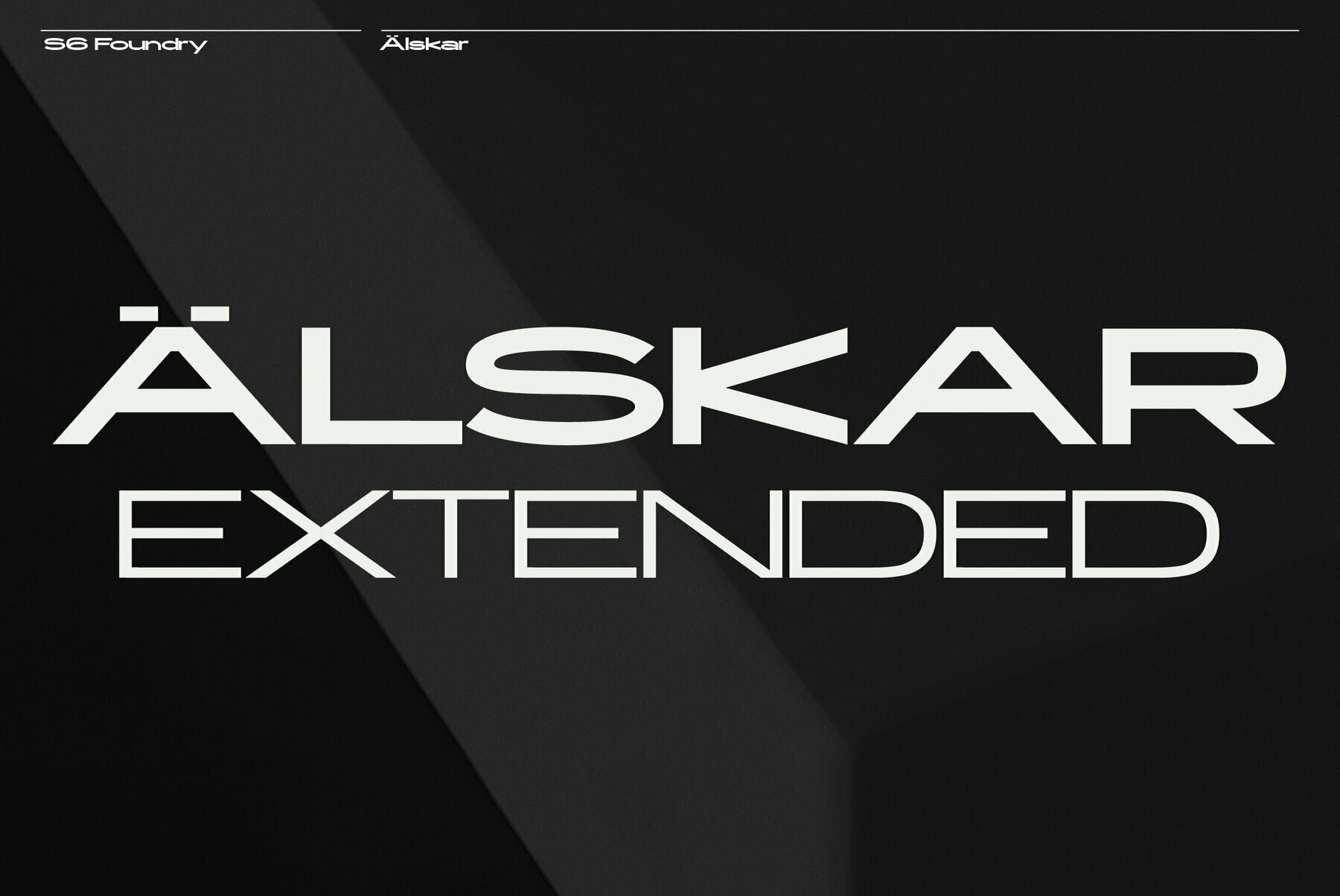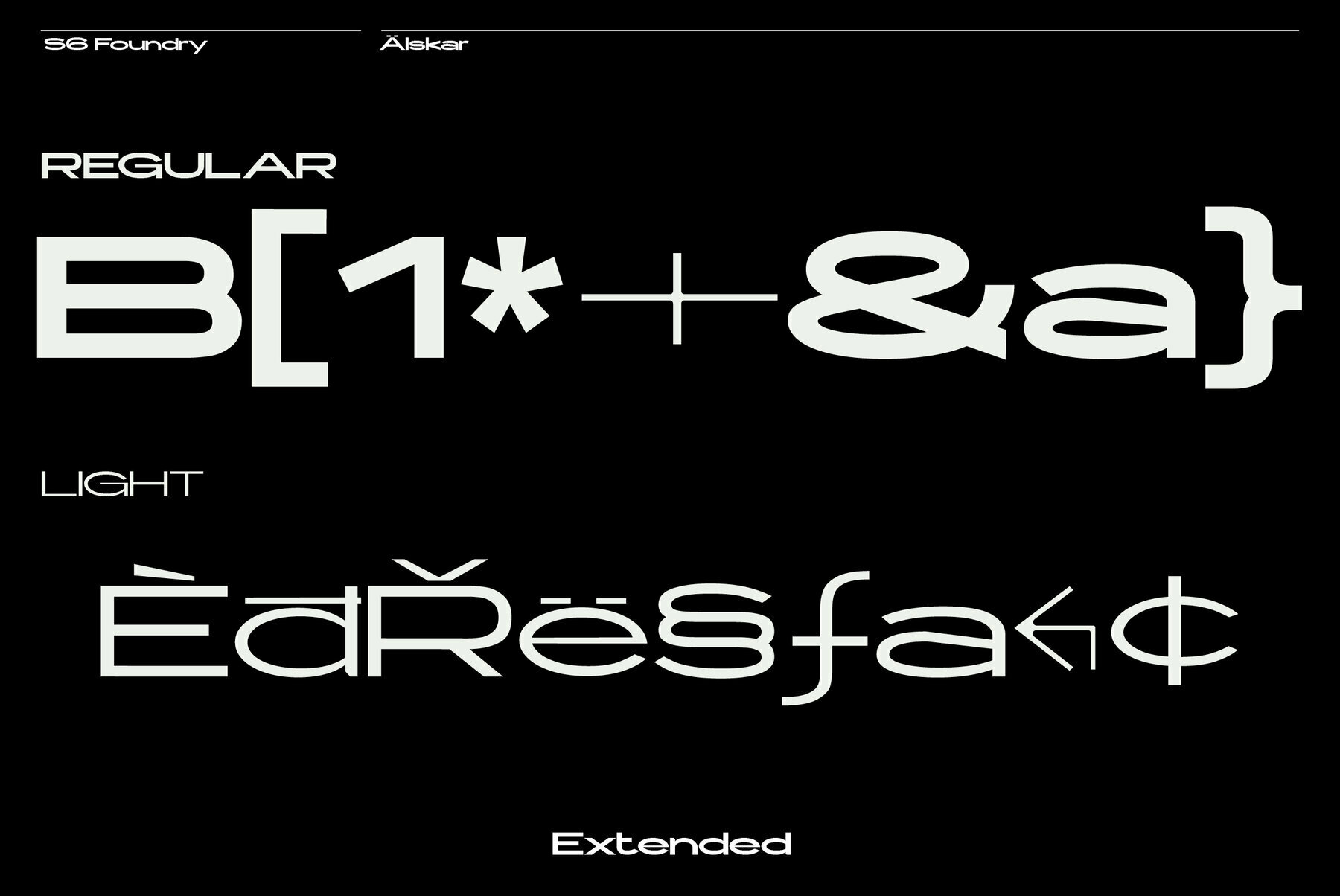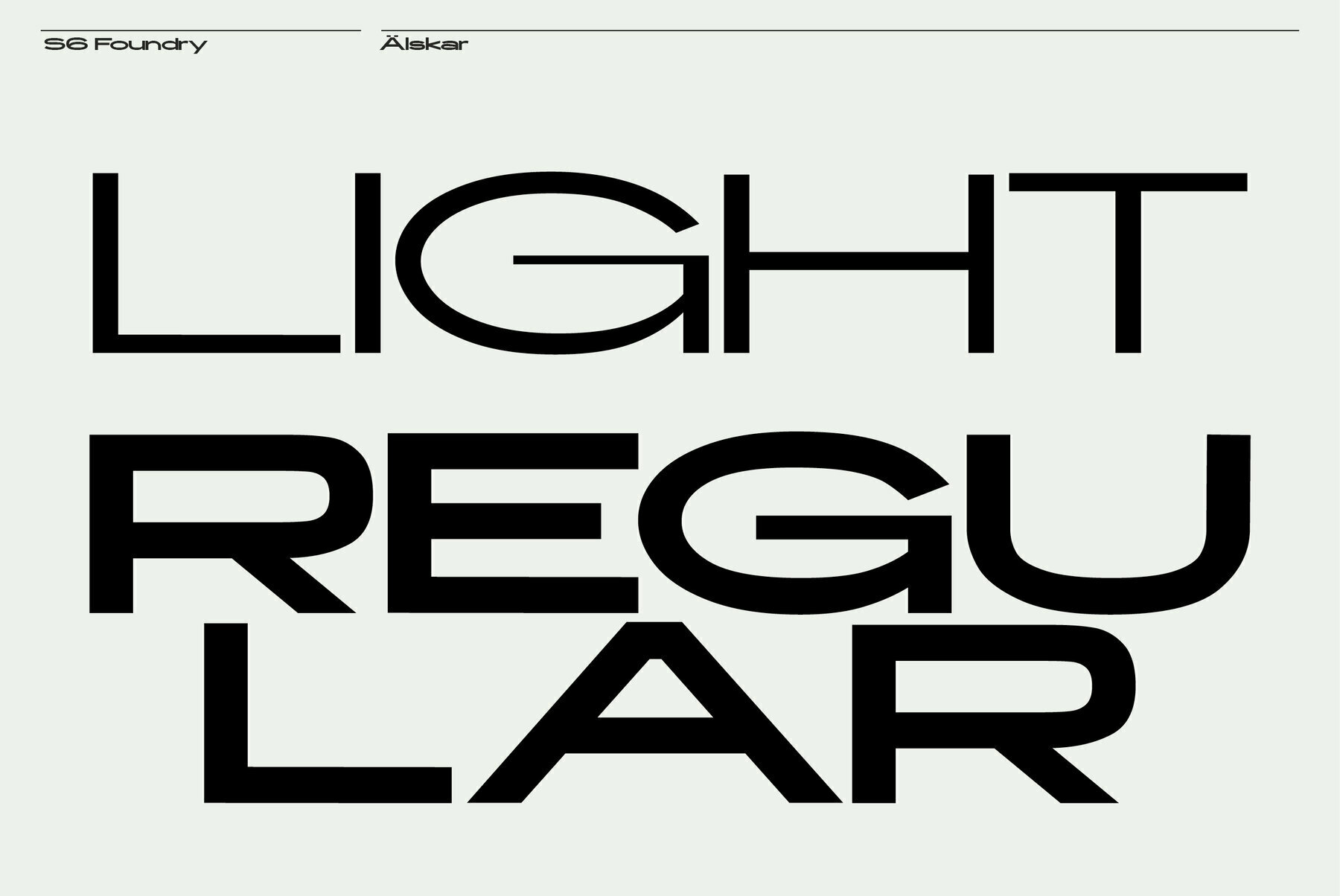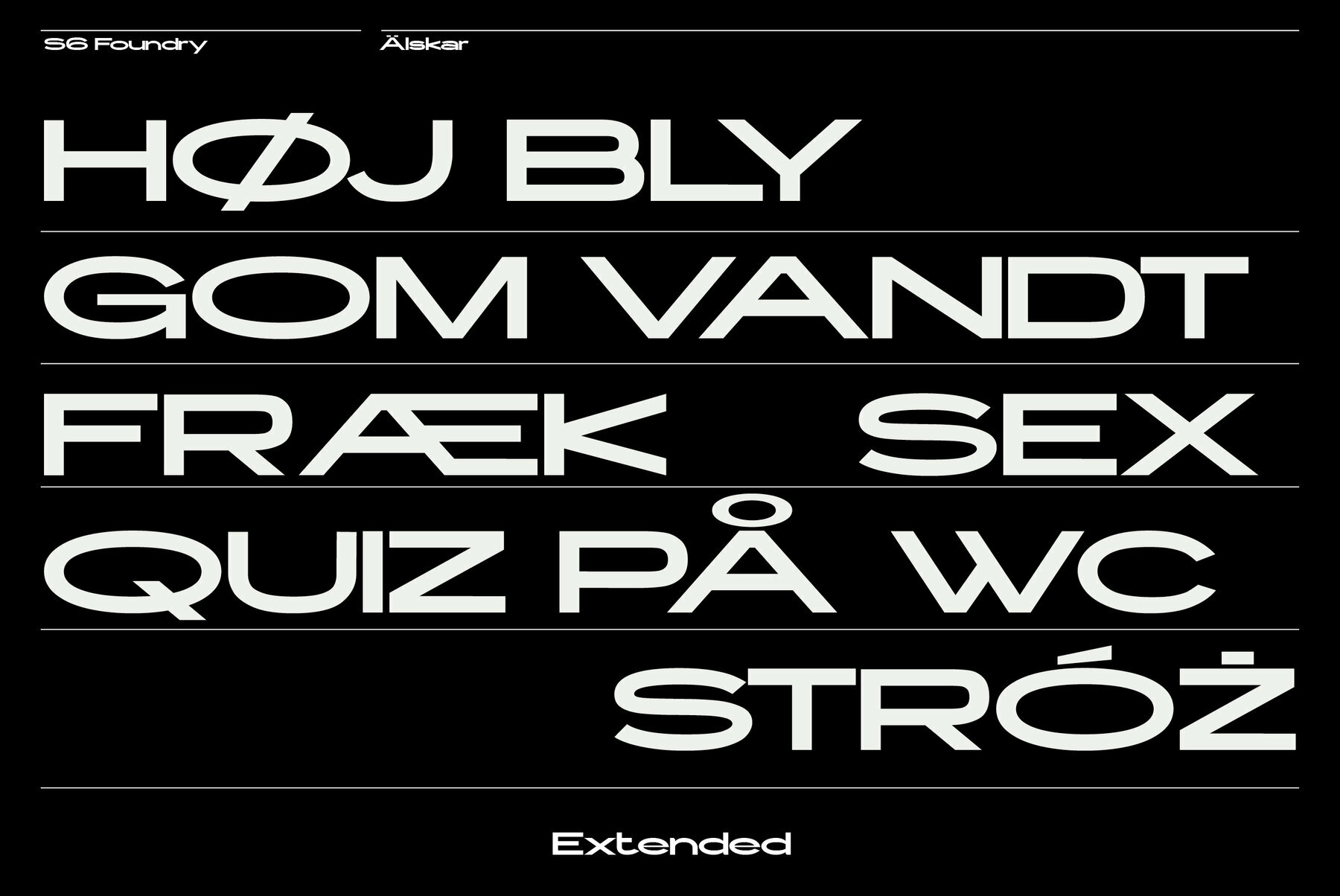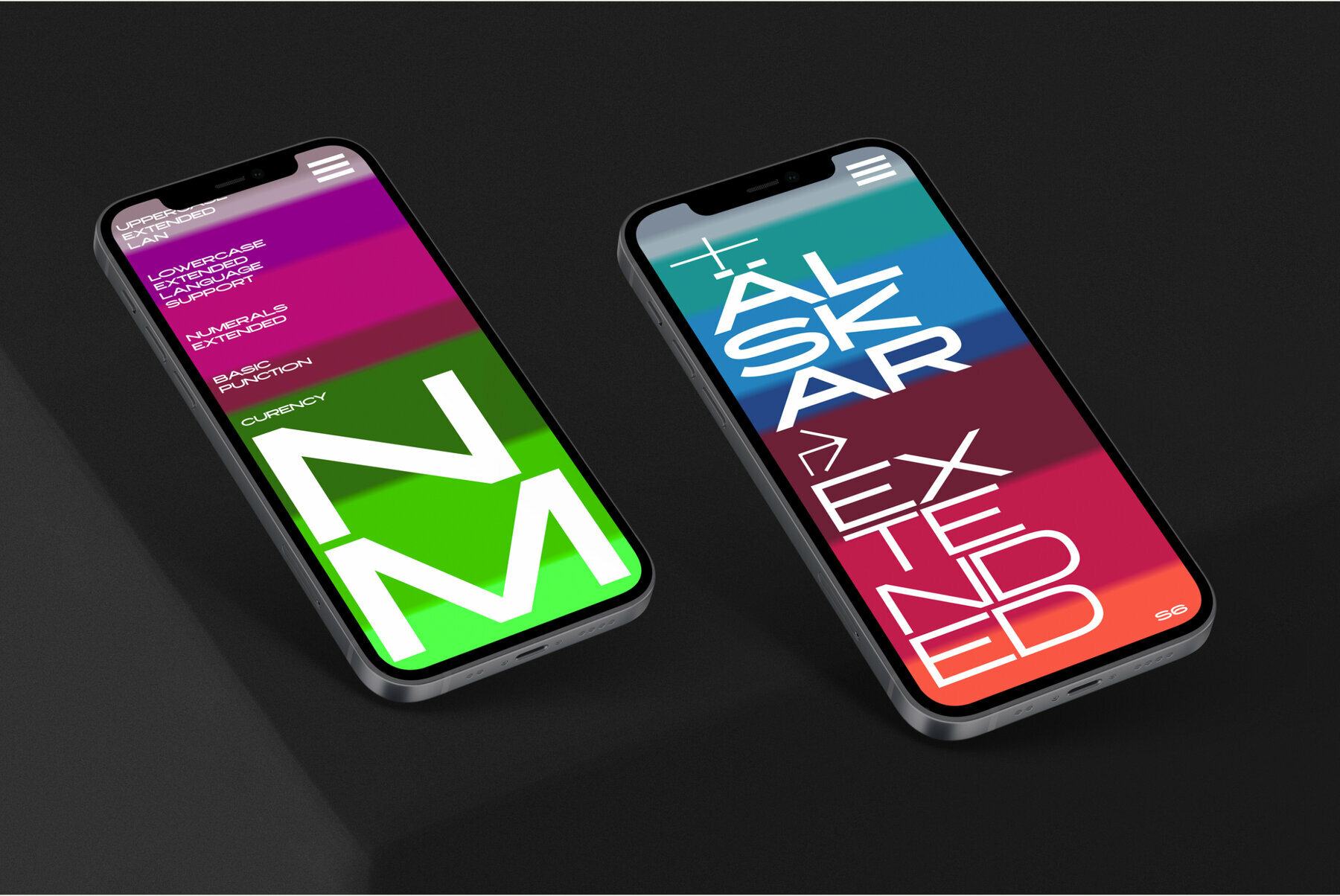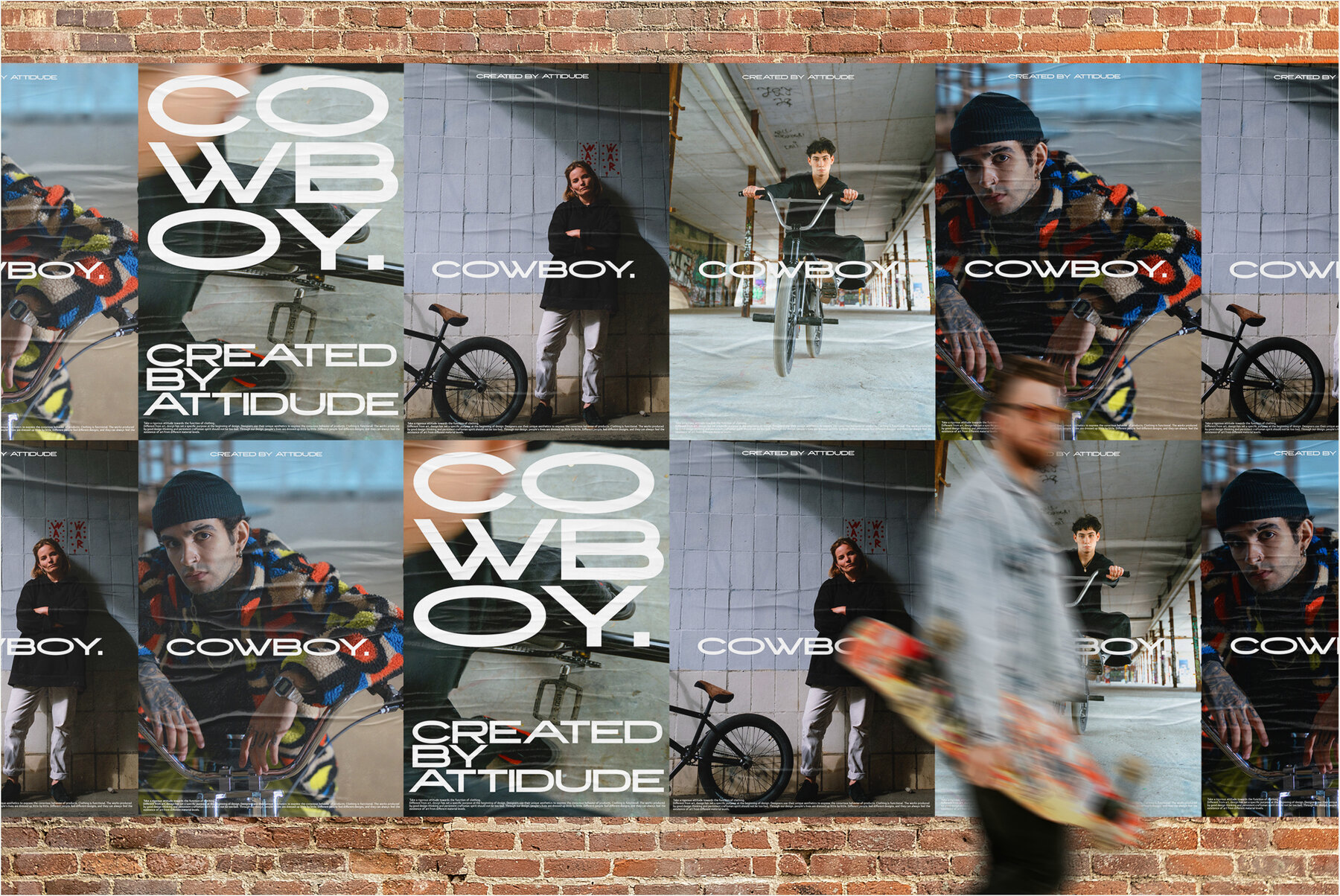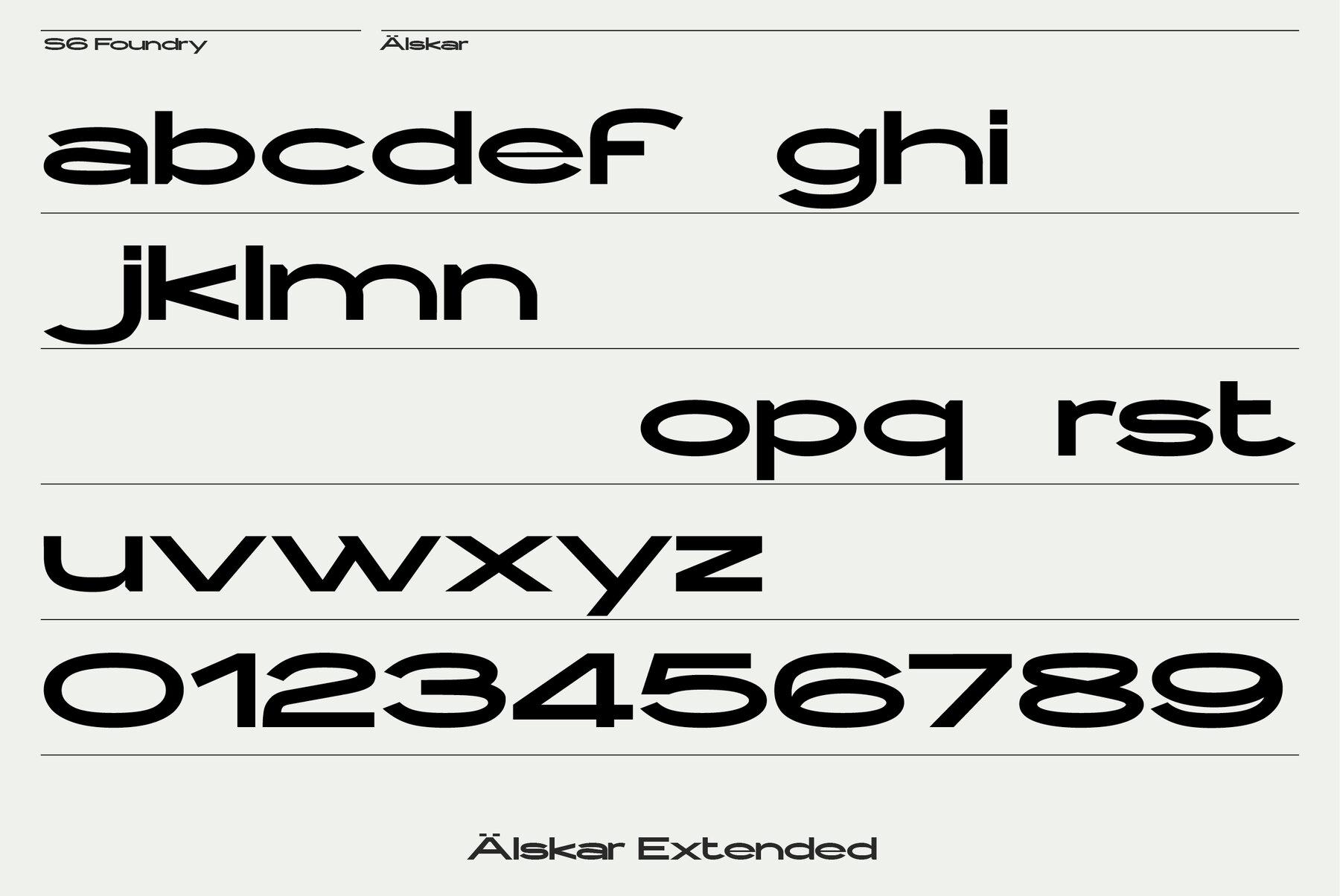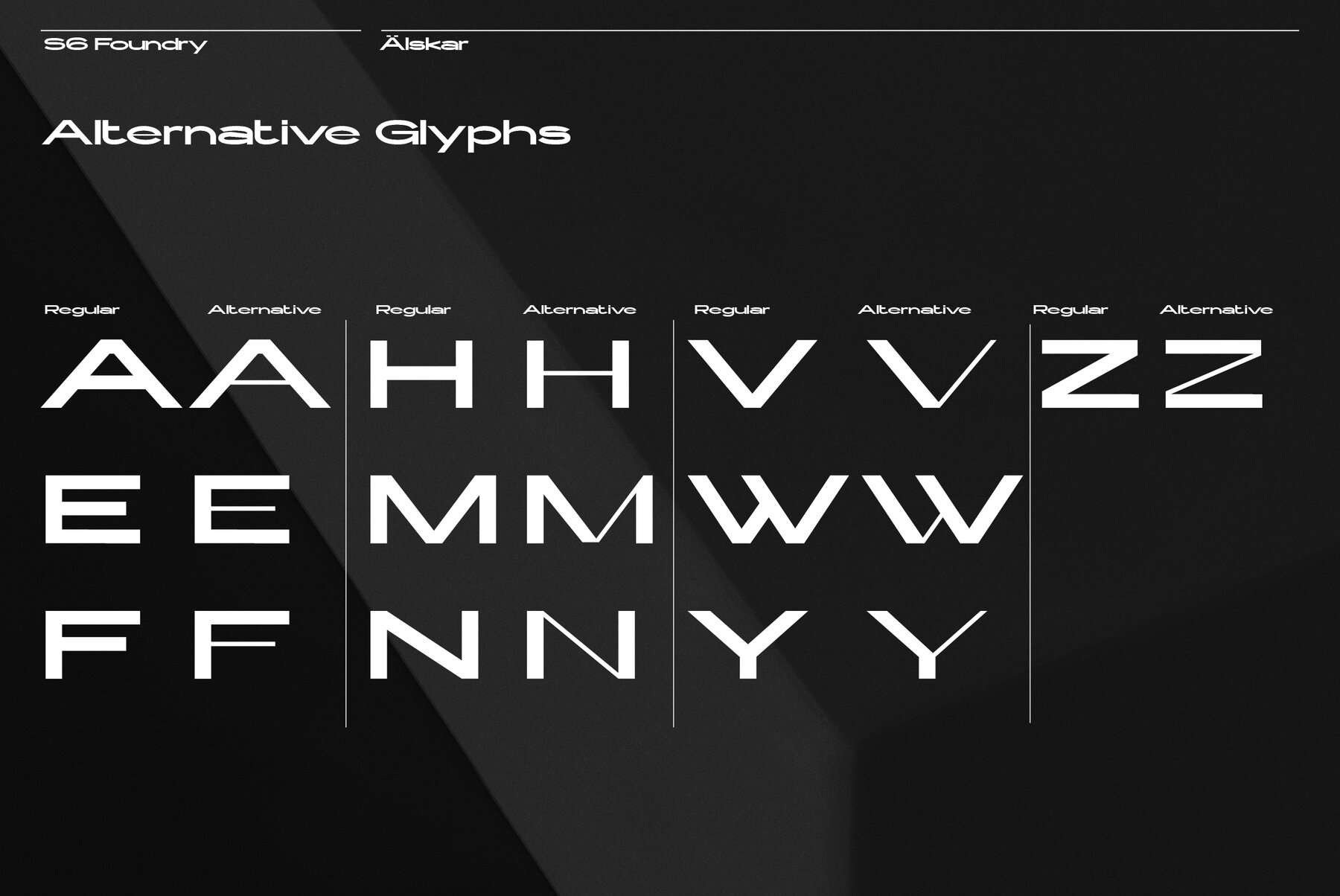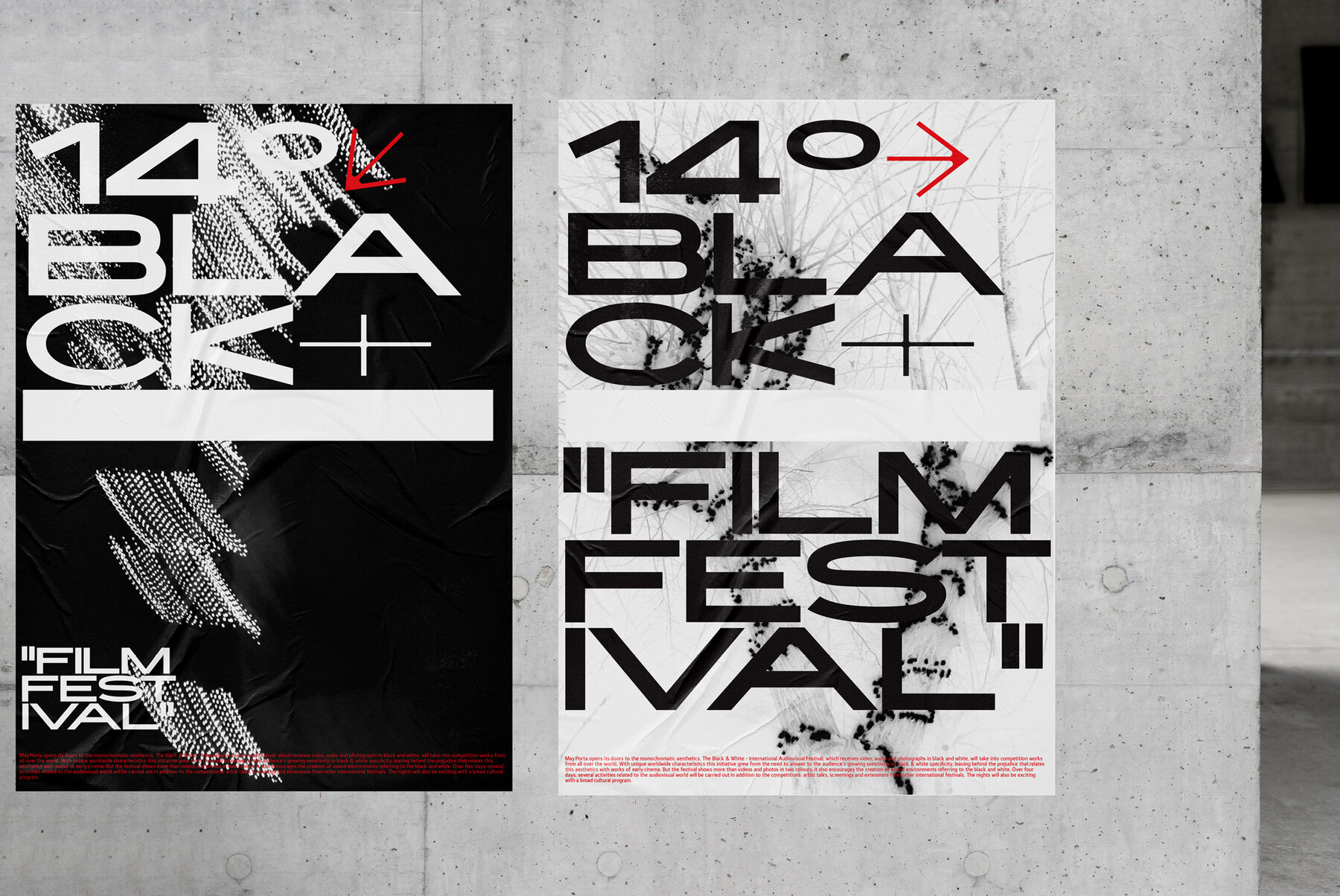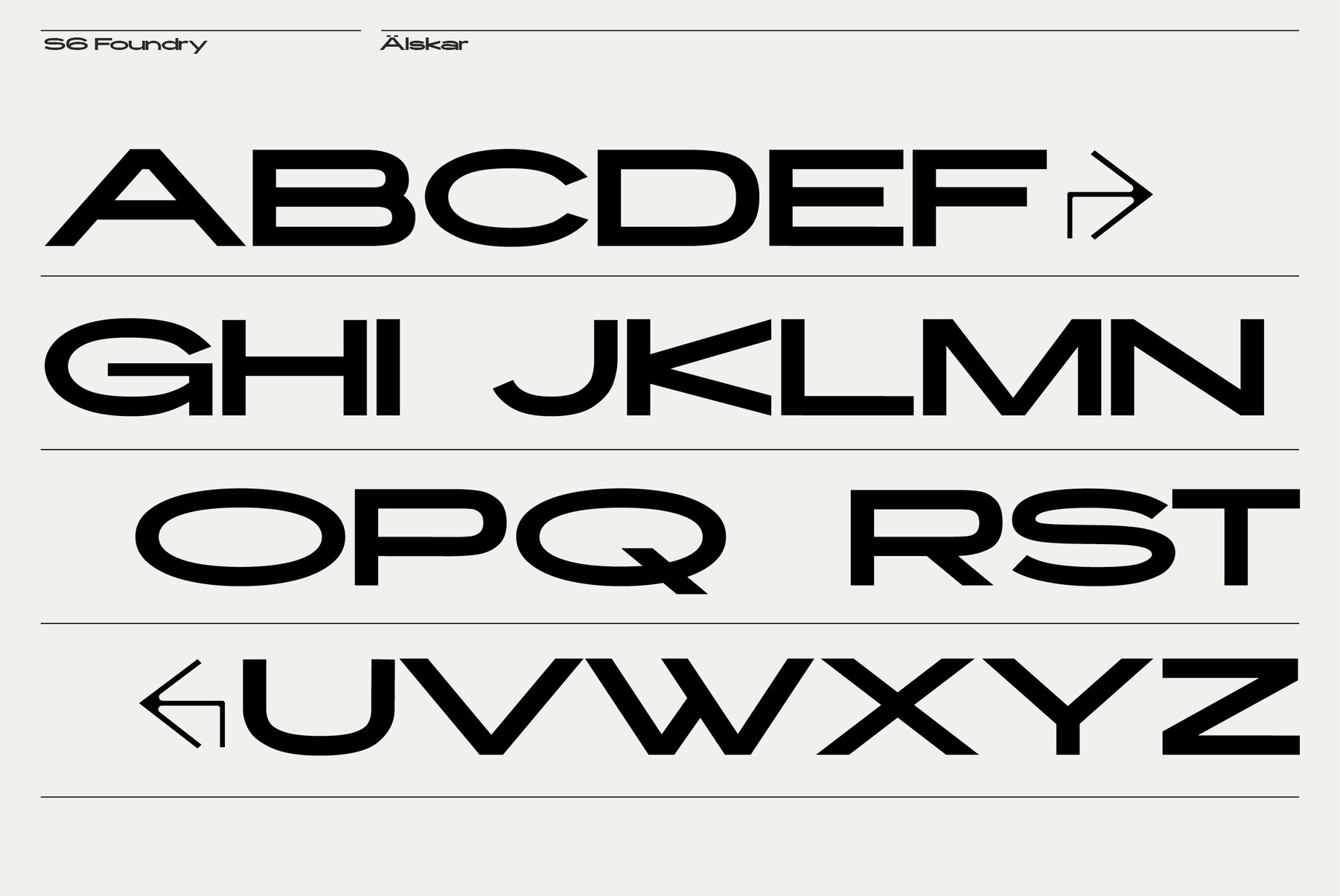
Alskar Extended Font
Alskar Extended Light
Alskar Extended Regular
Alskar sans is an elegant contemporary wide sans serif typeface with strong stylistic geometric, authentic contrasts, drawing on the aesthetics and representing the shifting contemporary aesthetics. The distinctive stance gives the right visual consistency for branding and communications. Alskar sans is perfectly suited for headlines, large-format prints, brand identities, social media, advertising, editorial design, posters, magazines, logos, headings, body copy, digital and more.